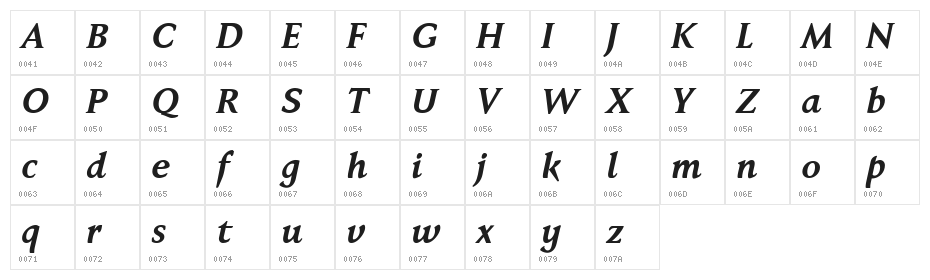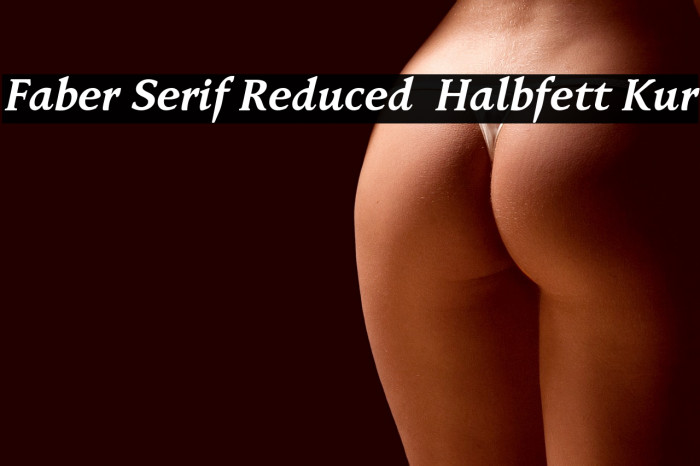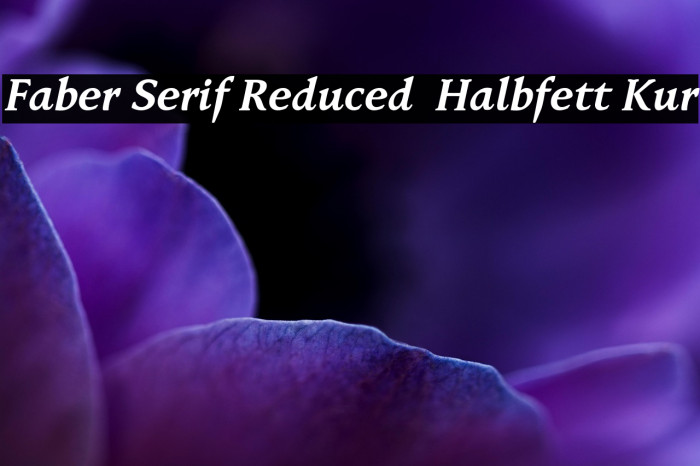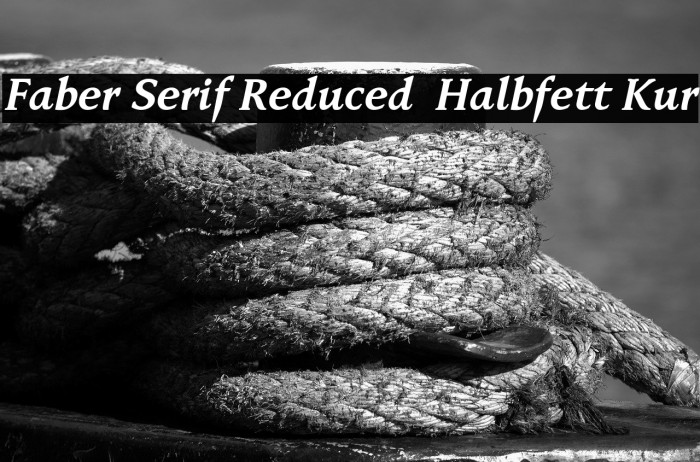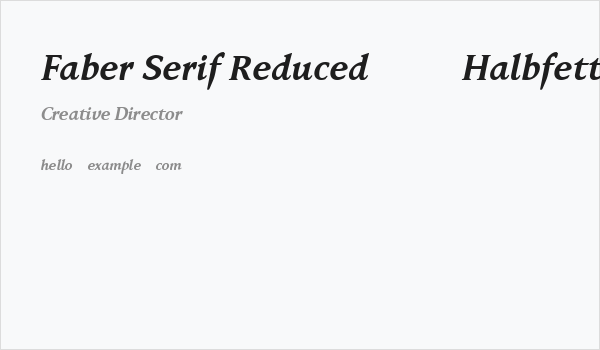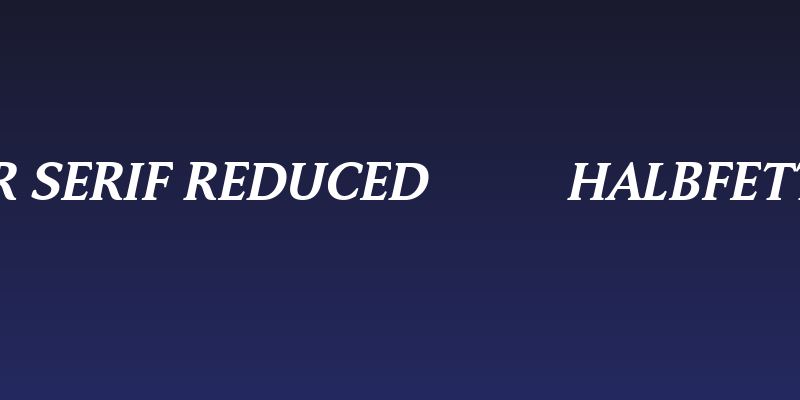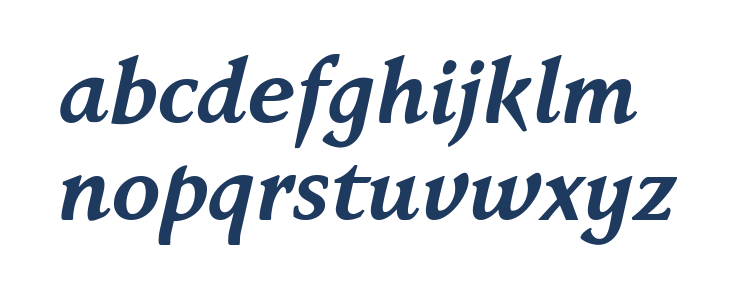
Faber Serif Reduced 76 Halbfett Kur Font
Faber Serif Reduced 76 Halbfett Kur Description
This font exhibits a classic serif style with a slightly modern twist, characterized by its elegant and flowing italicized form. The letters have a moderate contrast between thick and thin strokes, giving it a sophisticated appearance. The serifs are pronounced yet refined, adding a touch of tradition to the overall design. The font maintains a balanced proportion, making it suitable for both display and text purposes. Its italic nature adds a dynamic and graceful feel, enhancing readability while maintaining an aesthetic appeal.
| Proposed Projects | Ideal for book covers, editorial design, formal invitations, and branding projects that require a touch of elegance and tradition. |